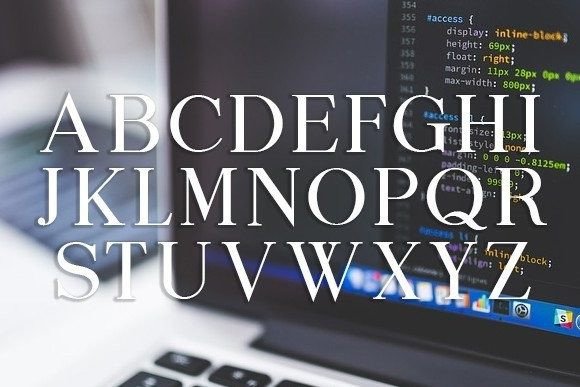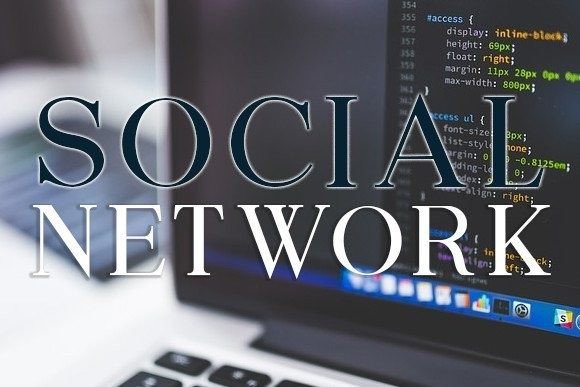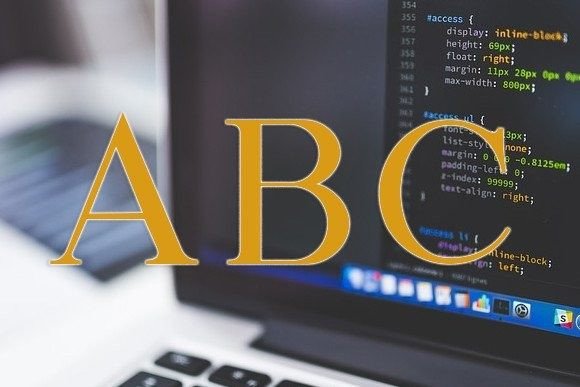
The Cyber Hashtags Font: A Designer’s New Best Friend
I’ll never forget the time I was working on a branding project for a trendy new cafe, and I just couldn’t find the right font. My client wanted something modern, yet sophisticated; clean, yet attention-grabbing. I scoured the internet, tried out dozens of fonts, but nothing seemed quite right. That was until I stumbled upon the Cyber Hashtags font. 💡
As soon as I saw it, I knew I had found what I was looking for. This all-caps, serif font is perfect for logos, branding, and headings. Its clean and universal design makes it versatile enough to use in a variety of contexts, from display and advertising to packaging and titles.
- ✨ Clean and modern design that’s perfect for logos and branding
- ✅ Highly versatile and can be used in a variety of contexts
- 💯 Excellent for display, advertising, packaging, and titles
- 🎉 Easy to read, even at smaller sizes
While the Cyber Hashtags font is amazing, it’s not perfect. Here are a few things to keep in mind:
- 🤔 As an all-caps font, it may not be the best choice for body text or longer blocks of text
- ⚠️ Some users may find the font a bit too “safe” or conservative
Cyber Hashtags was designed with the modern designer in mind. Its clean and universal design makes it perfect for a wide range of applications, from logos and branding to display and advertising. The font’s creator was inspired by the latest design trends and technologies, and aimed to create a font that would be both versatile and stylish.
Q: What is the Cyber Hashtags font?
A: Cyber Hashtags is an all-caps, serif font designed for logos, branding, and headings. It’s clean, universal, and highly versatile.
Q: What can I use the Cyber Hashtags font for?
A: You can use Cyber Hashtags for a wide range of applications, including logos, branding, display, advertising, packaging, titles, and more.
Q: Is Cyber Hashtags easy to read?
A: Yes, Cyber Hashtags is designed to be easy to read, even at smaller sizes.
Q: Can I use Cyber Hashtags for body text?
A: While Cyber Hashtags is an excellent font, it may not be the best choice for body text or longer blocks of text. Its all-caps design may make it more difficult to read in large quantities.